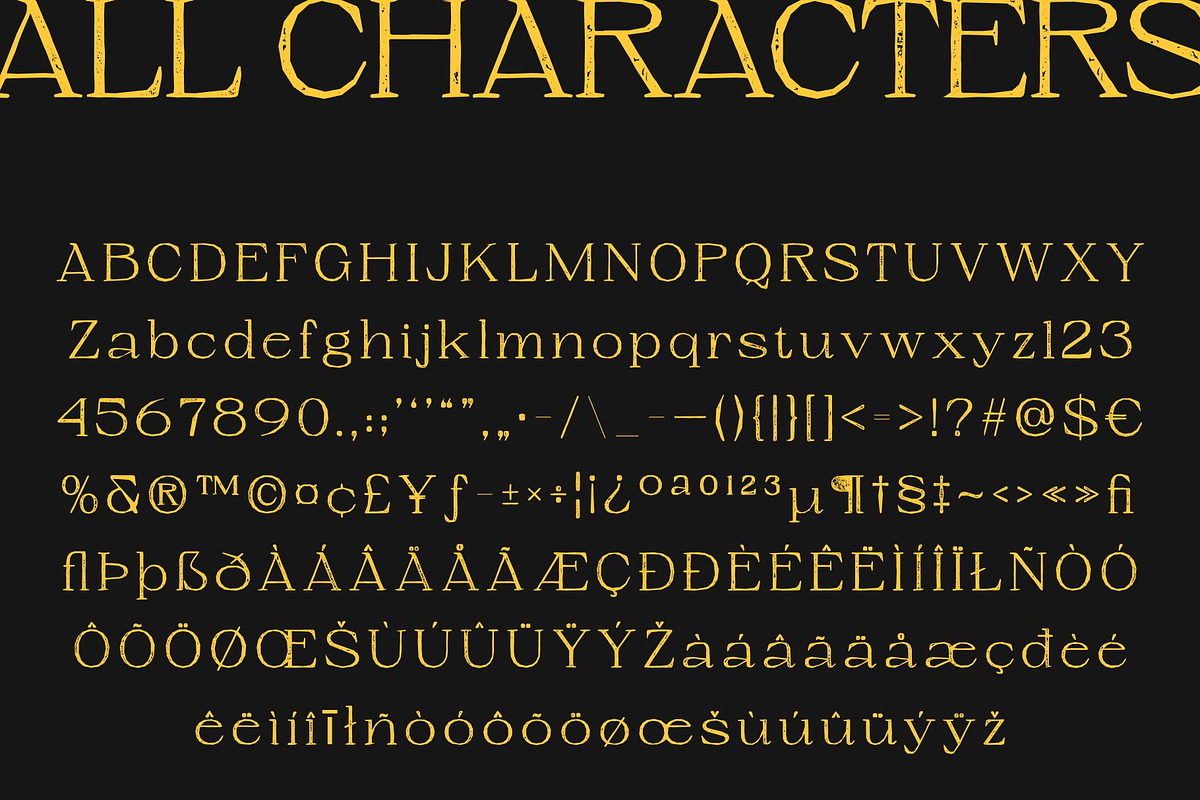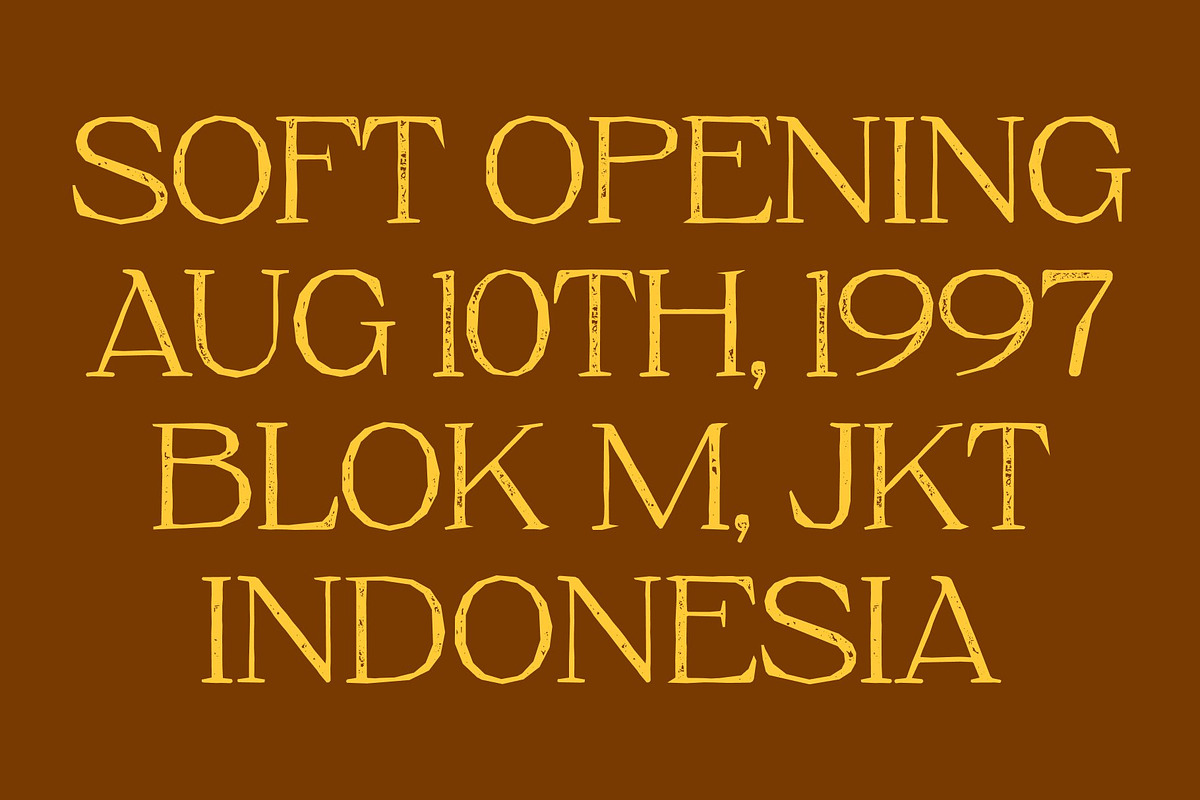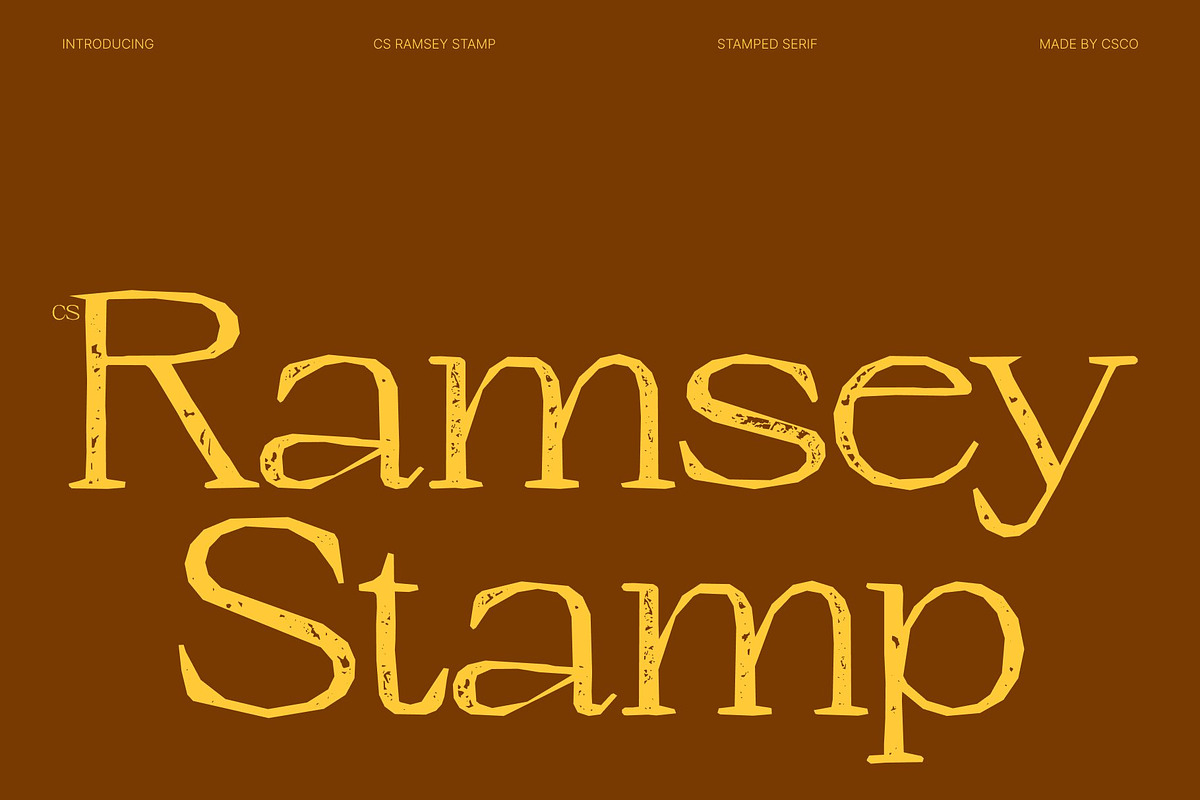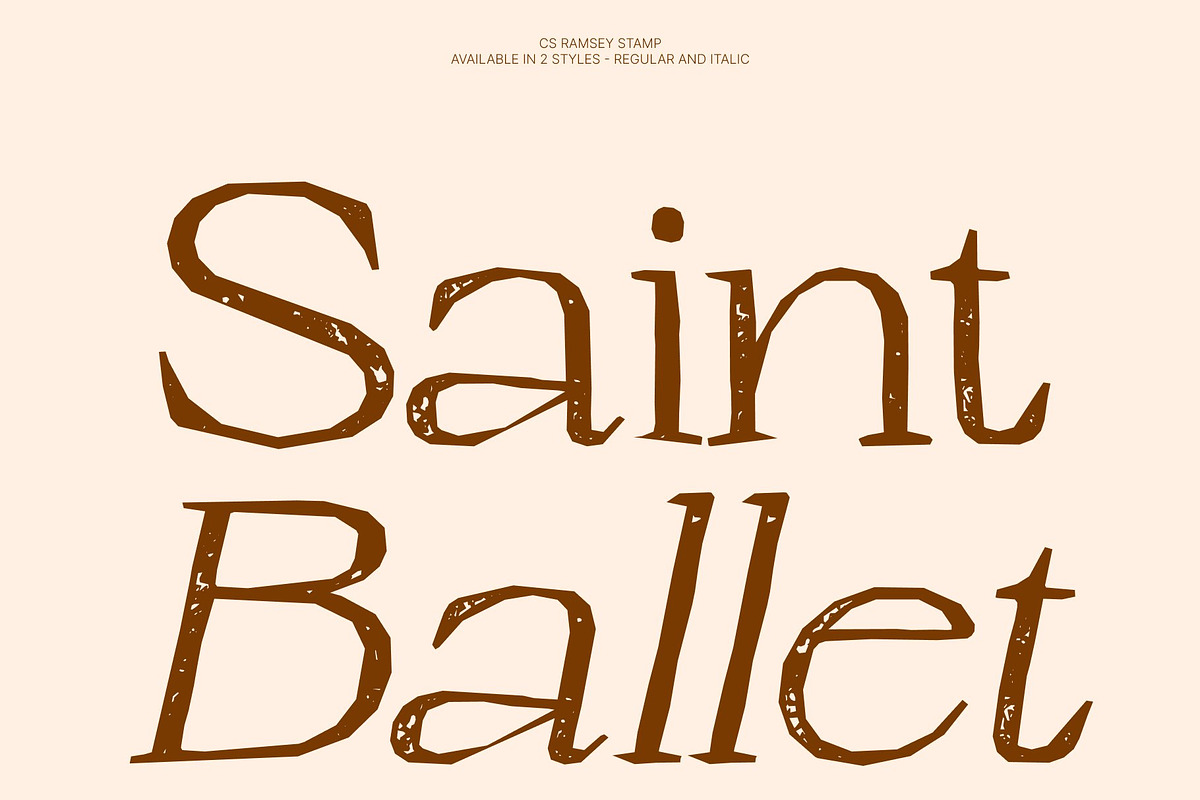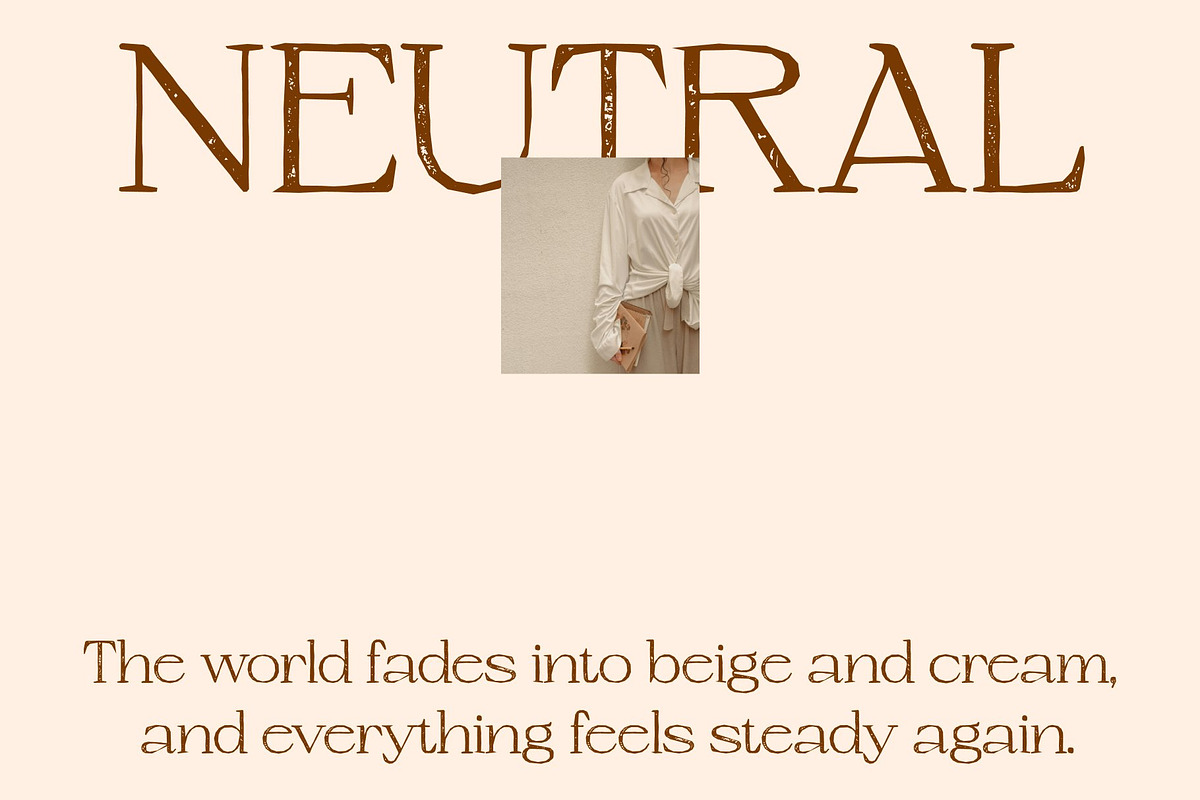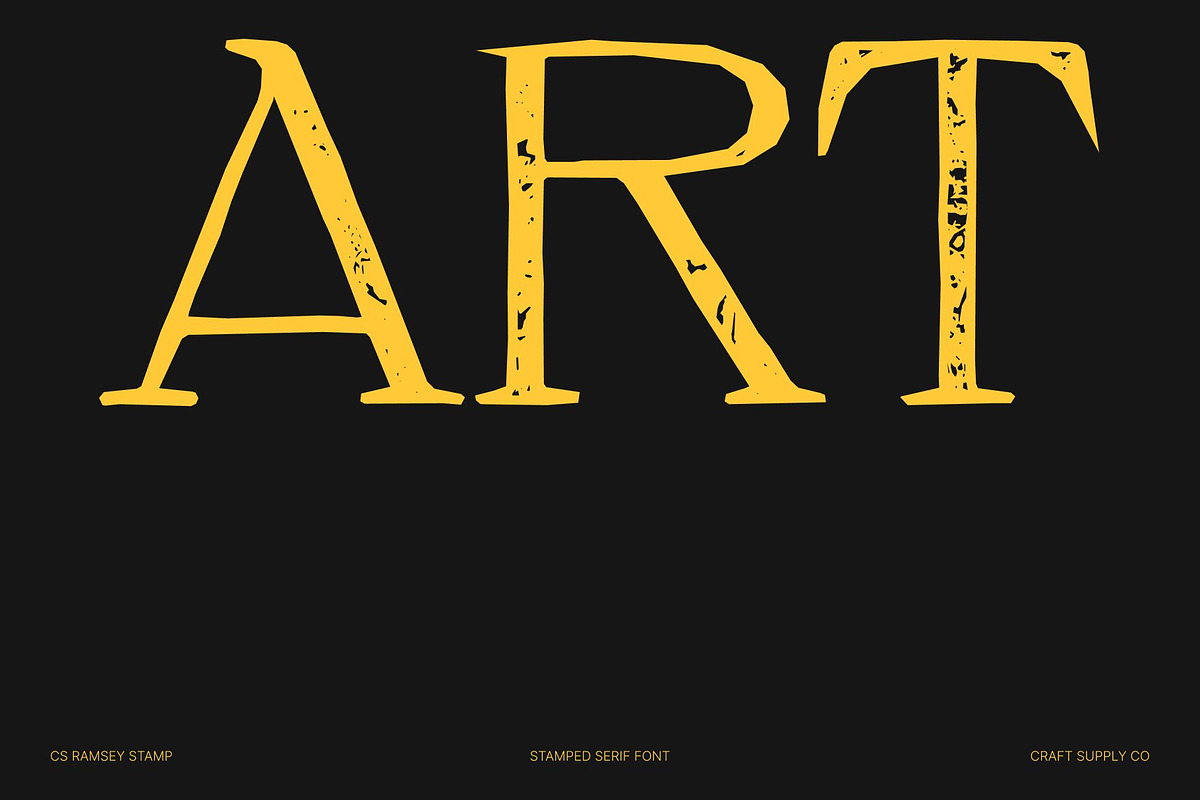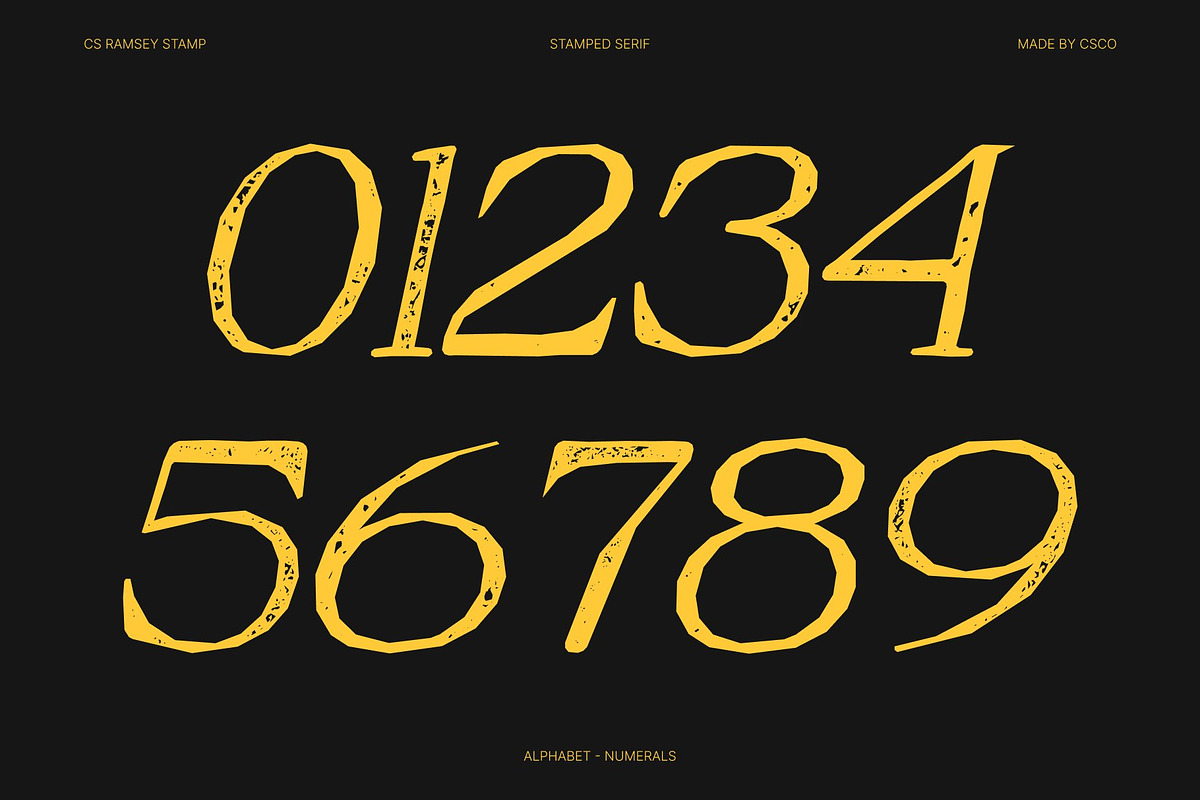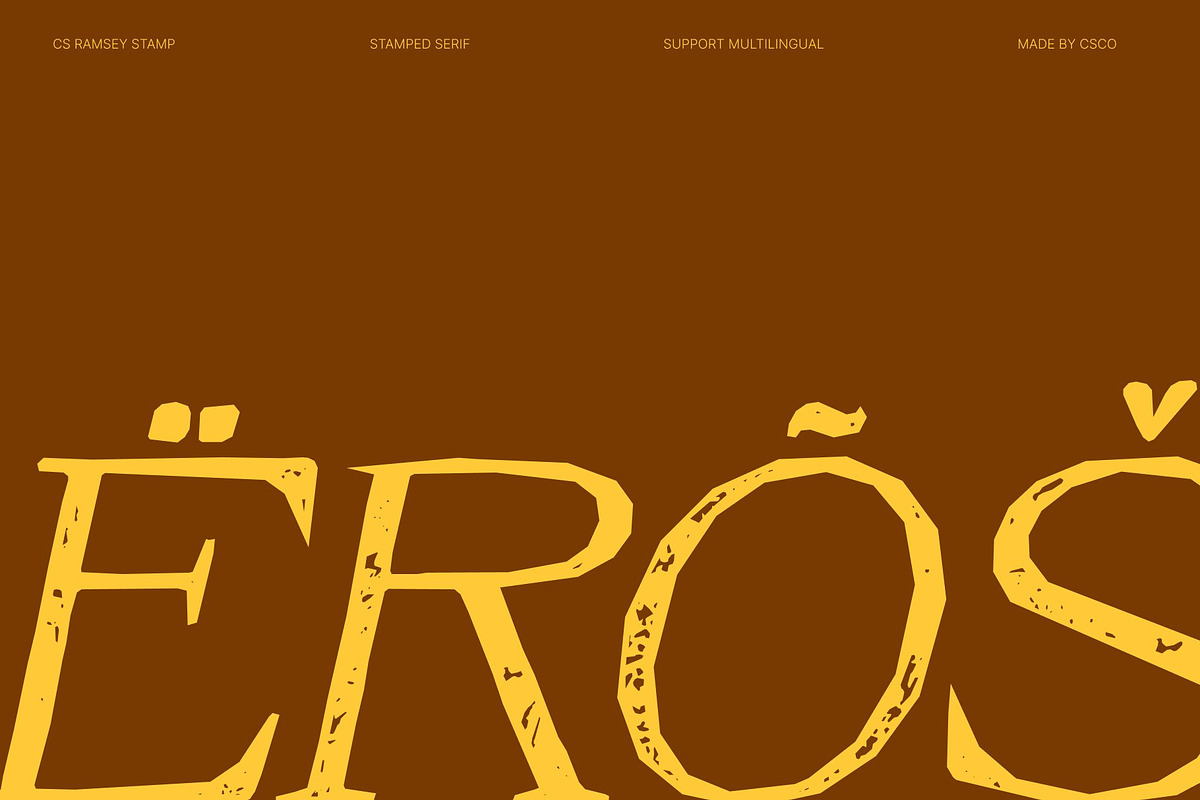
CS Ramsey Stamp
CS Ramsey Stamp – Modern Serif Font: Where Refined Minimalism Meets Vintage Stamp Texture
Delicate Serif Forms with Contemporary Elegance This is a modern serif font that embodies minimalist design principles through its thin, delicate lines and carefully balanced structure. Its refined letterforms create a sophisticated visual identity filled with elegance, clarity, and timeless appeal. Every character feels graceful and professional, making the font an excellent choice for high-end design applications that require both modernity and class.
Stamp Texture with Authentic Vintage Character This font features rough and uneven detailing that adds vintage authenticity and artistic texture to each letterform. This distressed finish creates the impression of traditional printmaking and aged impressions, bringing warmth, depth, and handcrafted character while preserving the font’s elegant structure.
Modern Luxury with Timeless Editorial Appeal This font delivers a typographic identity that feels sophisticated, artistic, and memorable. Its delicate forms combined with vintage texture evoke premium editorial design, heritage-inspired branding, and contemporary luxury aesthetics, making it both versatile and visually distinctive.
Perfect for Editorials, Branding, and Elegant Headlines This font perfect for editorial designs such as magazine layouts, annual reports, business publications, luxury branding, packaging, invitations, and premium promotional materials. Its textured serif forms make it ideal for headlines, titles, logos, and visual identities that seek a sleek modern impression enriched with timeless character.